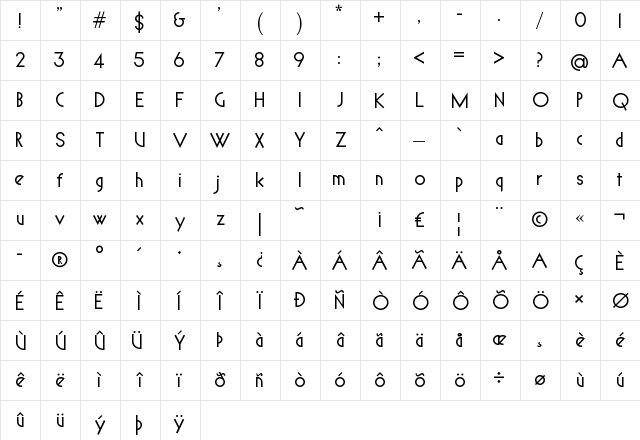
Spyrogeometric Regular
Design Context for Spyrogeometric
Spyrogeometric is a composed and adaptable typeface that performs quietly and consistently across a wide range of design contexts.
Pro Tip: Use Spyrogeometric in both headline and body roles to test its range before committing to a single application.